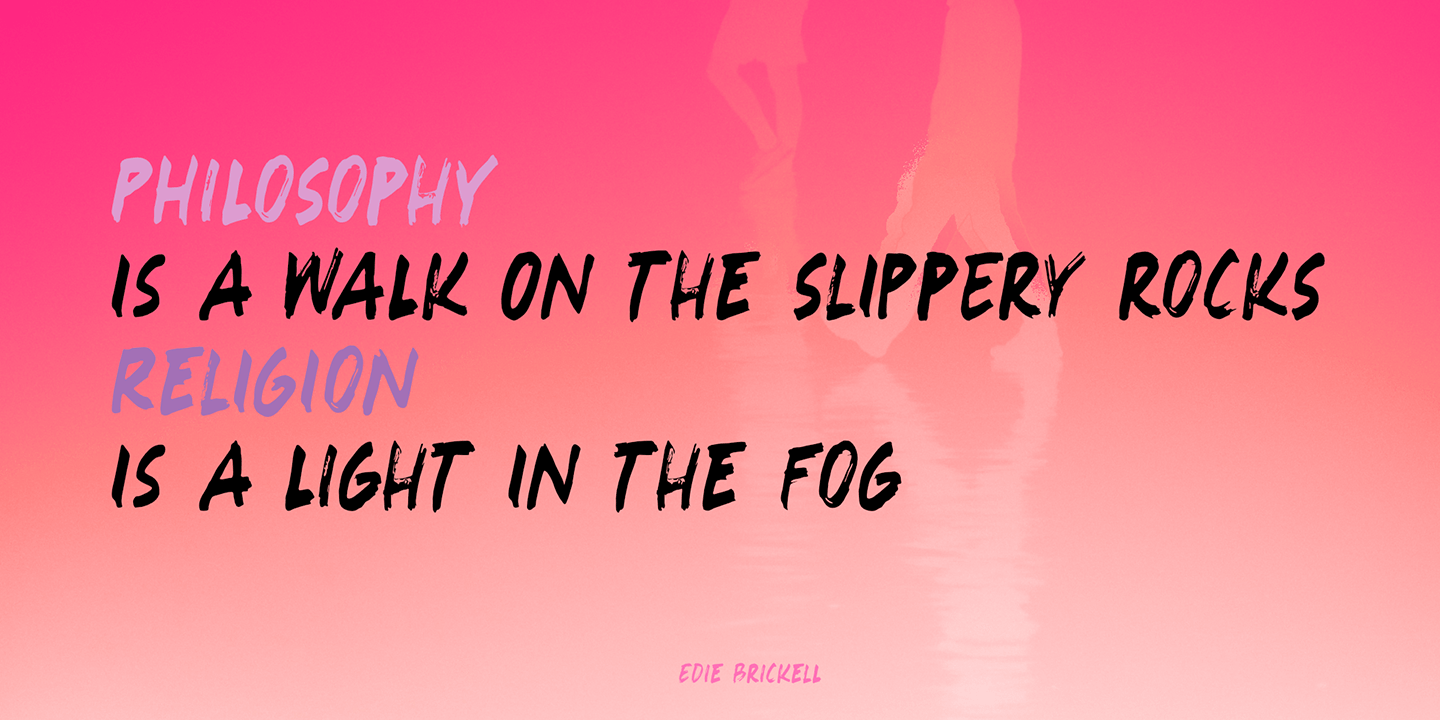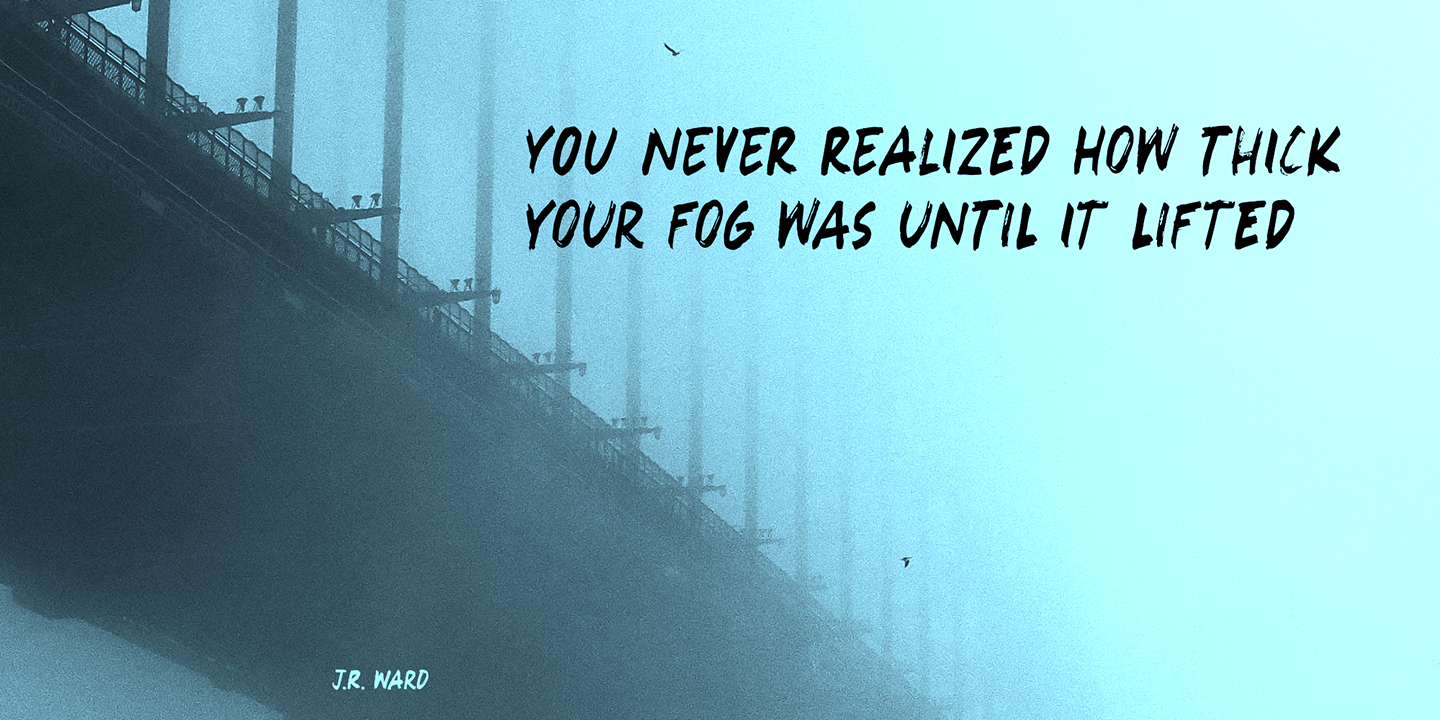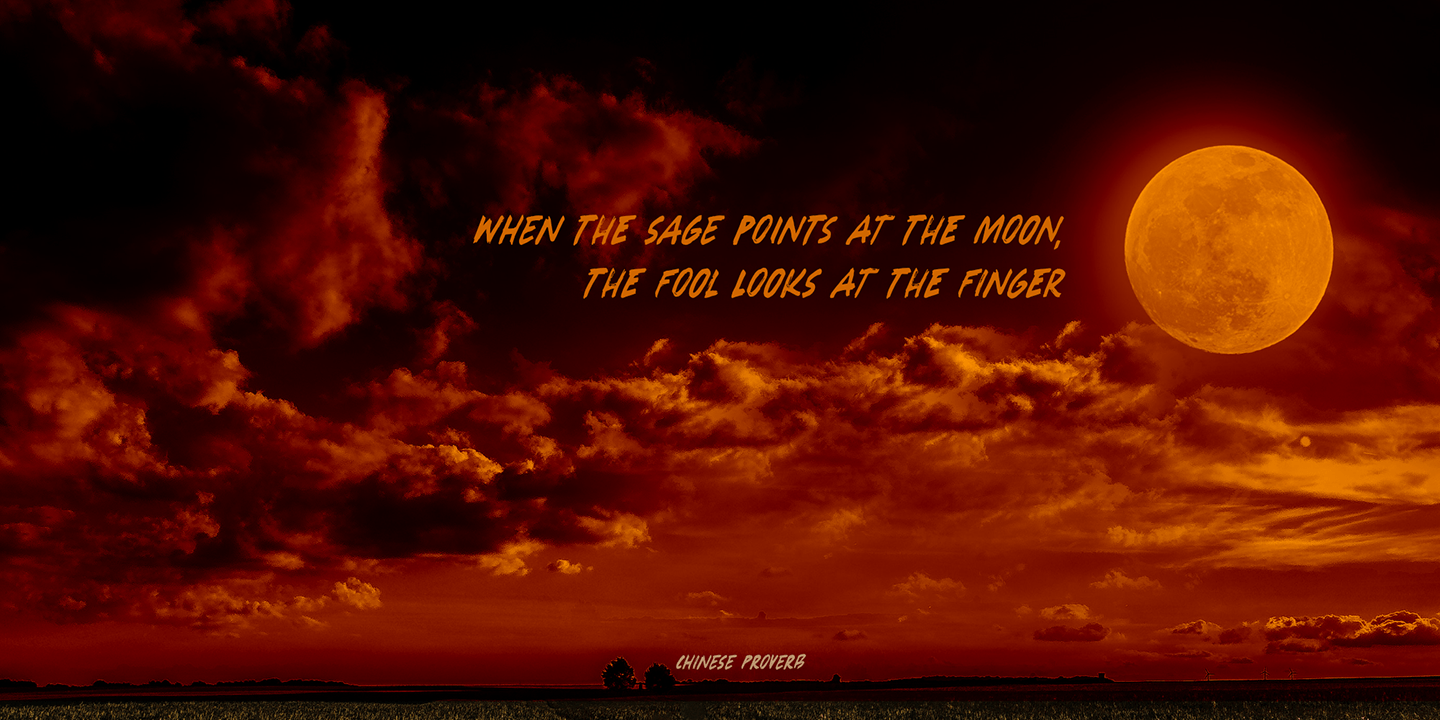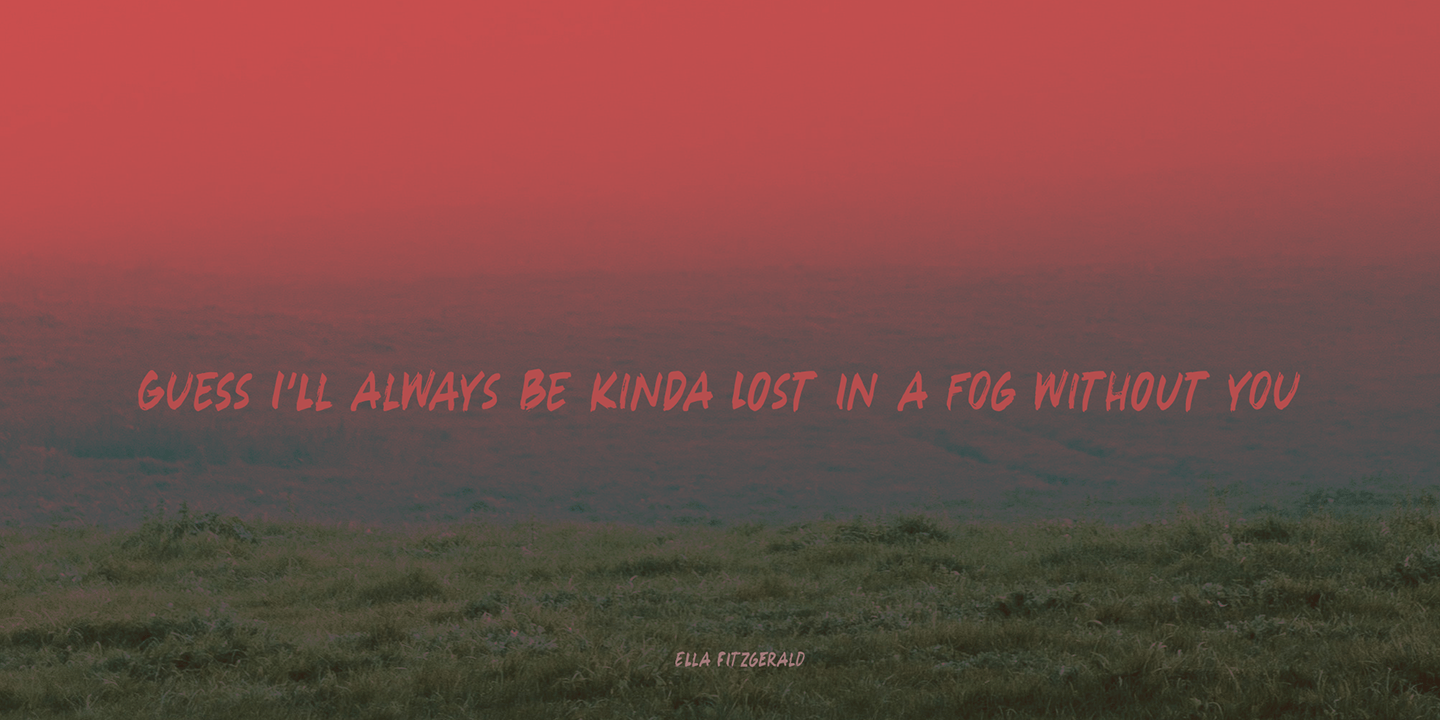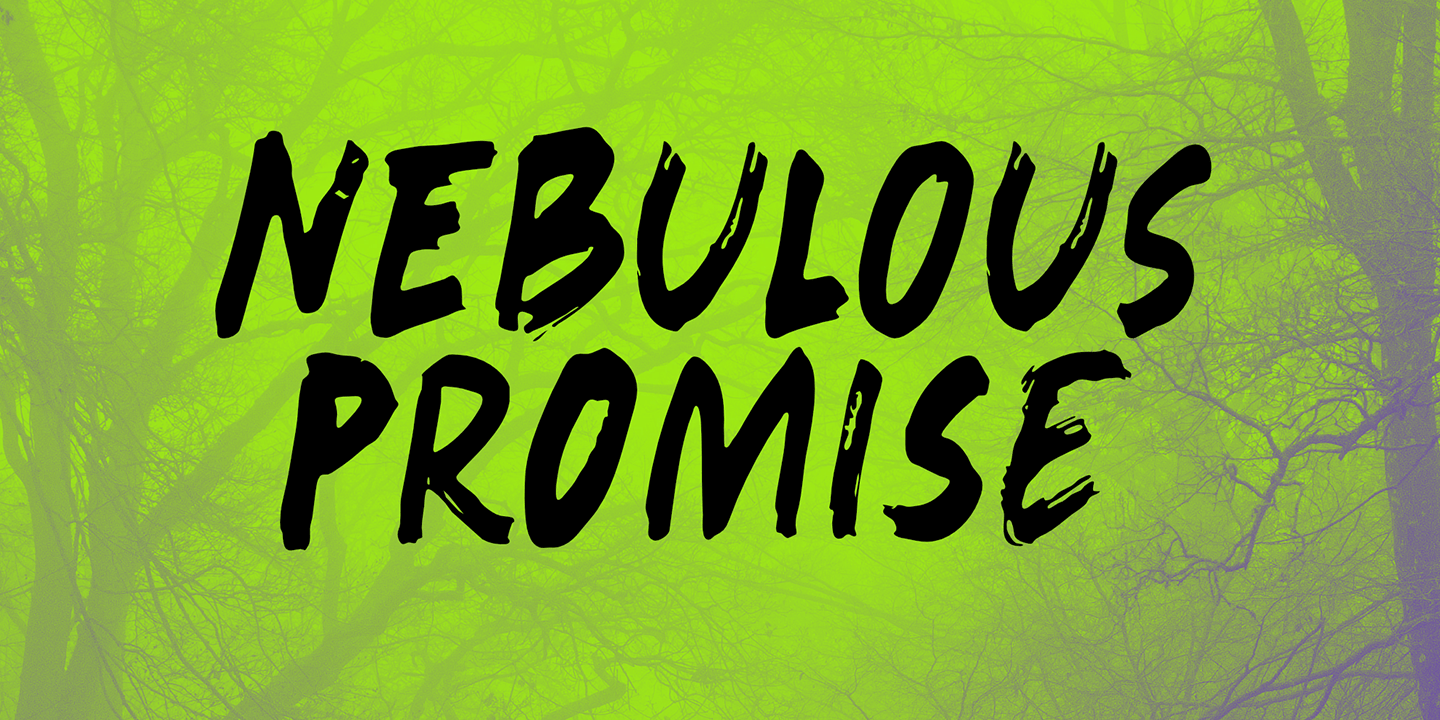
Nebulous Promise
This font was called differently when I started out building it, but after a long and insightful conversation with a good friend, I decided to call it Nebulous Promise. Nebulous Promise was made using a broken satay skewer (I like using those!) and Chinese…